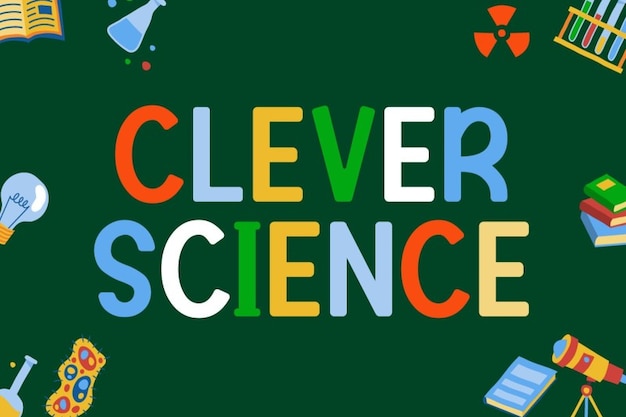
Clever Science Font
Clever Science is a smart, versatile font designed for school and science-themed projects. Its clean, basic letterforms balance readability with a hint of curiosity, perfect for educational materials, lab designs, or playful academic branding. Clever Science adds a touch of simplicity and intellect, making learning and discovery both engaging and approachable.